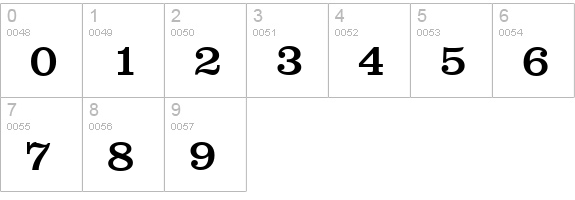
ClareSerial-Medium Font Details
ClareSerial-Medium is a balanced, medium-weight variant in the ClareSerial typeface family \xE2\x80\x94 well suited to sub-headlines, navigation, and balanced editorial work.
Introducing ClareSerial-Medium font – a versatile and modern typeface that combines elegance with readability. This font is perfect for a wide range of design projects, from branding to editorial design. With its clean lines and balanced proportions, ClareSerial-Medium exudes sophistication and style. One of the best things about ClareSerial-Medium font is that it is completely free to download. You can easily access this high-quality font at FontsMarket.com, where you can find a wide selection of premium fonts for all your design needs. Whether you are working on a personal project or a commercial venture, ClareSerial-Medium font is a versatile choice that will elevate your designs to the next level. Don't miss out on the opportunity to enhance your creative projects with the ClareSerial-Medium font. Download it for free today and see how it can make a difference in your designs!